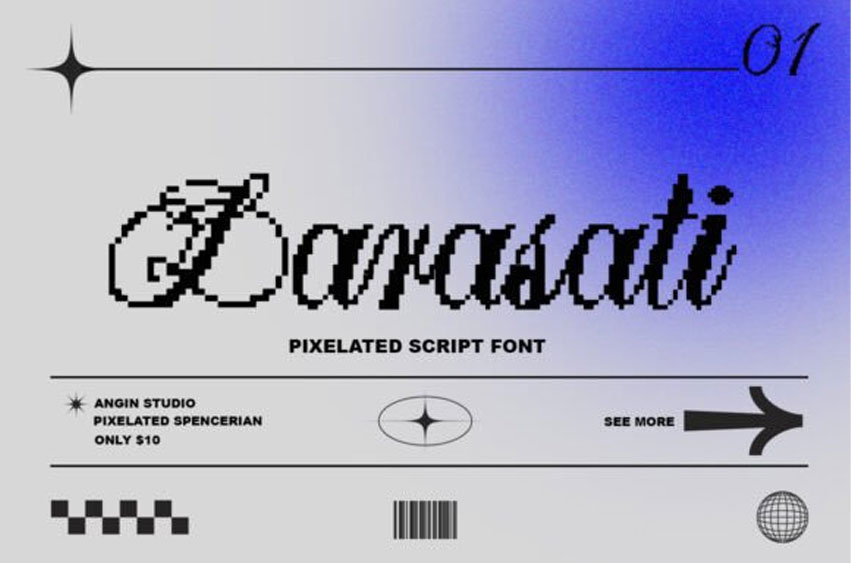
Larasati Pixelated Font
Larasati Pixelated Font is the Pixelated Spencerian Script Font, a mesmerizing fusion of vintage elegance and modern pixel.
Immerse yourself in the charm of Spencerian script, meticulously crafted to exude timeless sophistication, now reimagined with a pixelated twist that adds a unique edge to your designs.